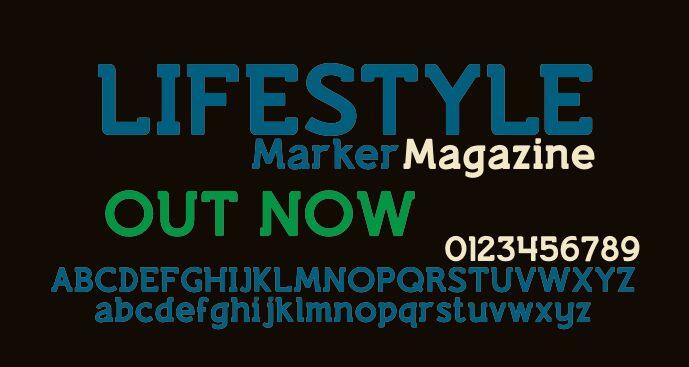
Lifestyle Marker M54
Just a semi-slab serif font I felt inspired to create after flicking through a magazine. This is the marker style fully rounded version of 'Lifestyle M54'.